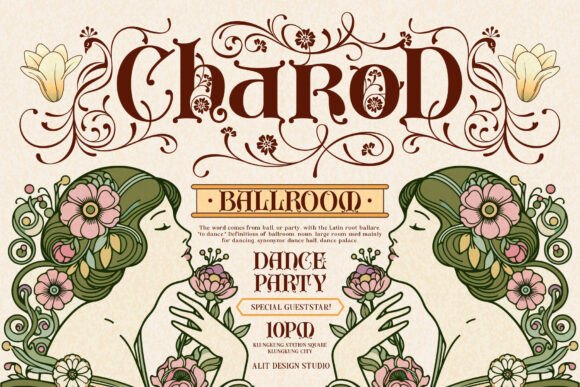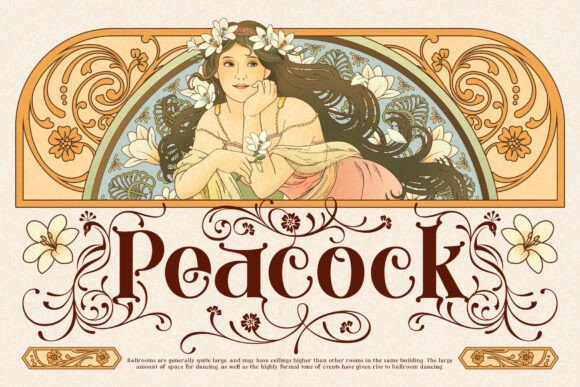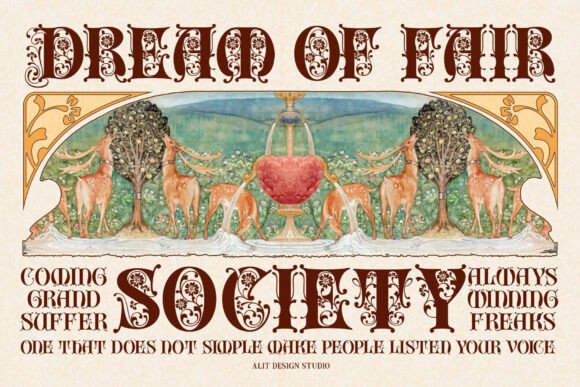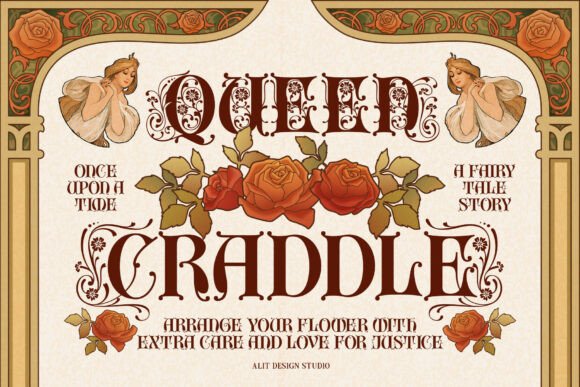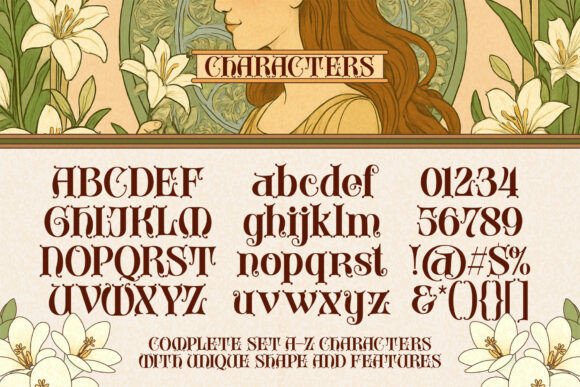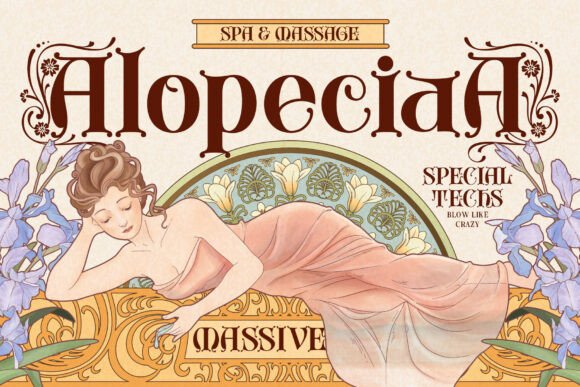
Grand Malon Font: Elevate Your Designs with Timeless Elegance
Step into a world of refined sophistication and intricate beauty with Grand Malon, a breathtaking display typeface that redefines the classic Gothic serif style. Inspired by the ornate typography found in treasured old books and vintage manuscripts, Grand Malon is a masterpiece of digital craftsmanship, meticulously designed to transport your designs to a bygone era of elegance.
A Masterpiece of Digital Craftsmanship
Every letter in Grand Malon is a work of art, carefully crafted with elaborate details, graceful swirls, and nature-inspired ornamentation. This font is not just a set of characters; it’s a gateway to creating designs that are both classic and captivating. Whether you’re a designer, craftsperson, or simply someone who appreciates the beauty of typography, Grand Malon is sure to leave a lasting impression.
A Symphony of Ornaments
What sets Grand Malon apart is its rich collection of decorative elements. The typeface is adorned with flowing swirls reminiscent of Art Nouveau, delicate floral motifs, and the majestic elegance of peacock feathers. These intricate details are woven into the very fabric of the letters, giving your text an unparalleled level of sophistication and visual appeal.
Grand Malon Font Example
Unleash Your Creativity
With Grand Malon, the possibilities are endless. Use it to create:
• Stunning headlines and titles that demand attention
• Elegant invitations and announcements that exude sophistication
• Beautiful branding and packaging designs that stand out
• Intricate illustrations and artwork that showcase your creativity
Key Features of Grand Malon Font
• Intricate Gothic serif style with elaborate details
• Rich collection of decorative elements, including swirls, floral motifs, and peacock feathers
• Meticulously designed to ensure perfect readability and aesthetics
• Supports multiple languages and special characters
Why Choose Grand Malon Font?
Grand Malon is more than just a font – it’s an experience. With its unique blend of classic elegance and intricate beauty, it’s the perfect choice for designers and craftspersons who want to elevate their designs to the next level. Whether you’re working on a personal project or a commercial endeavor, Grand Malon is sure to make a lasting impression.
Grand Malon is a true masterpiece of digital craftsmanship, offering a unique blend of classic elegance and intricate beauty. With its rich collection of decorative elements, meticulous design, and versatility, it’s the perfect choice for designers and craftspersons who want to create stunning designs that stand out. Download Grand Malon today and experience the magic of timeless elegance.